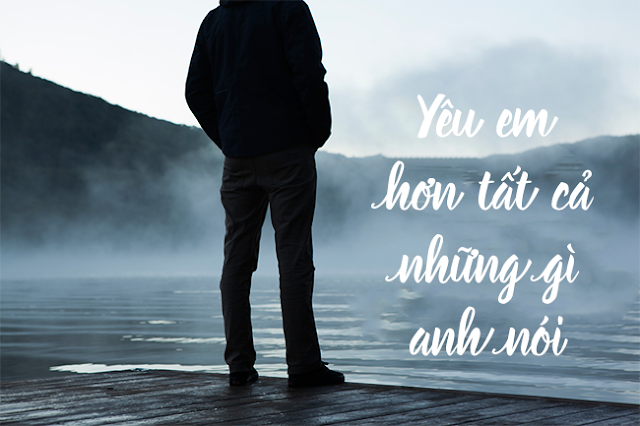
[Hand-write] Beloved Việt hóa
Thông tin về font Beloved
Beloved Script –The hand of a romantic spirit, rendered in ballpoint
As befits its name, Beloved Script suggests the hand of a romantic spirit … albeit one writing with a simple pen. Its monoline strokes evoke classic 20th-century penmanship achieved with a ballpoint or rounded nib.